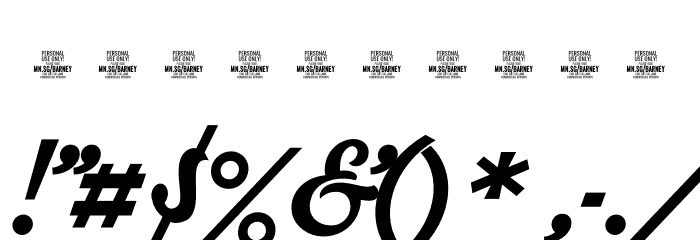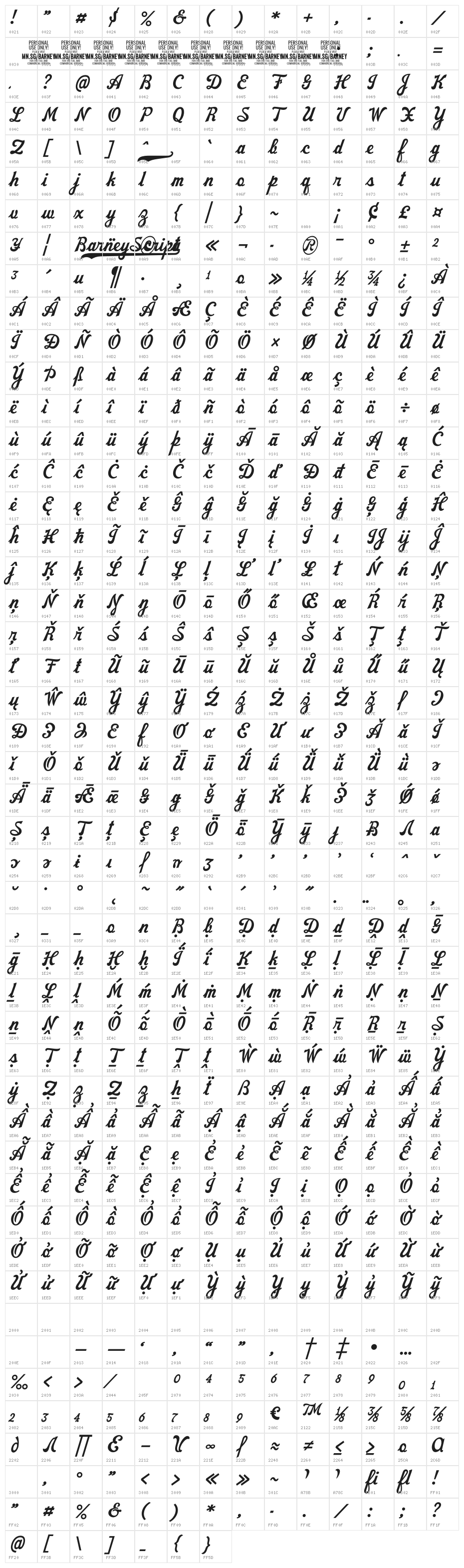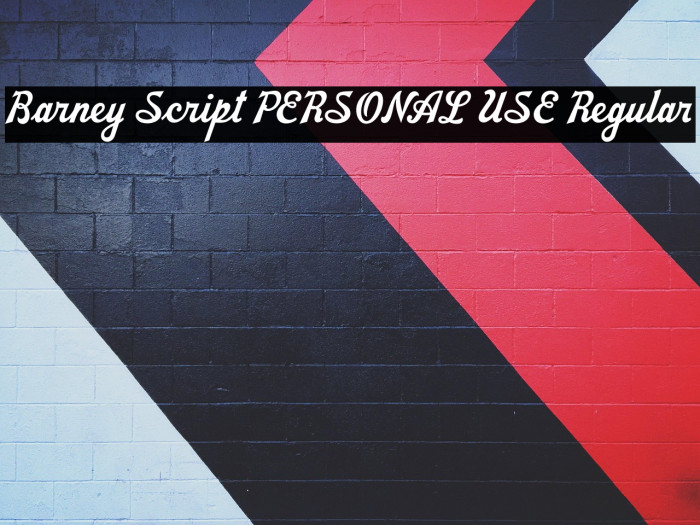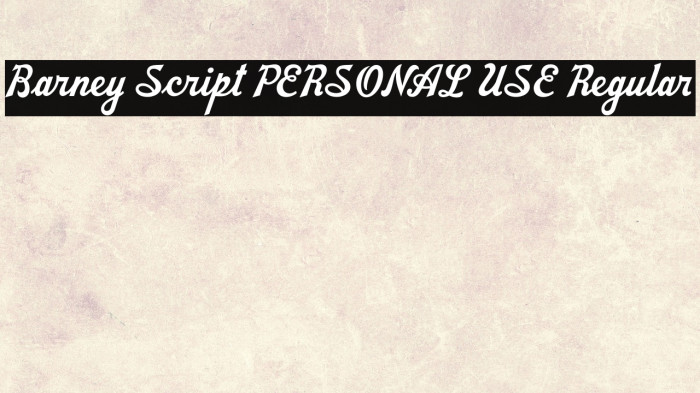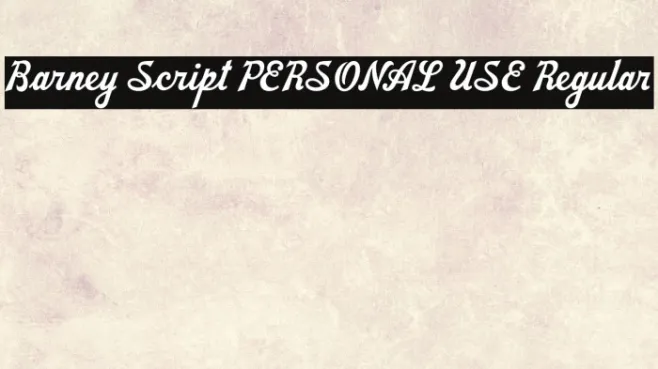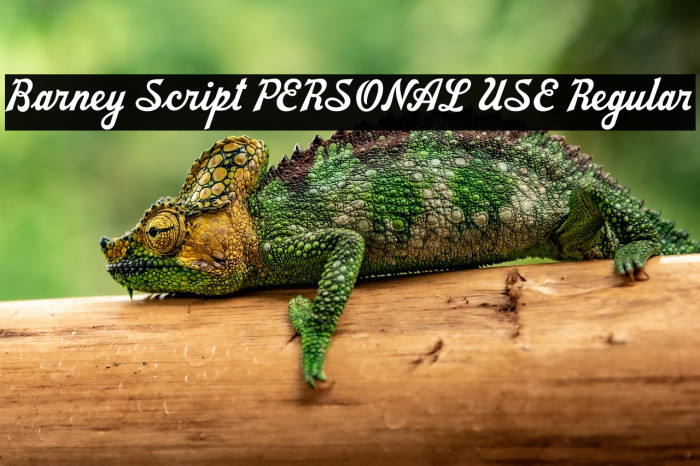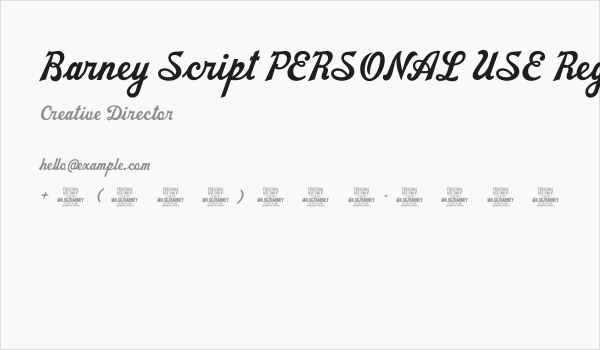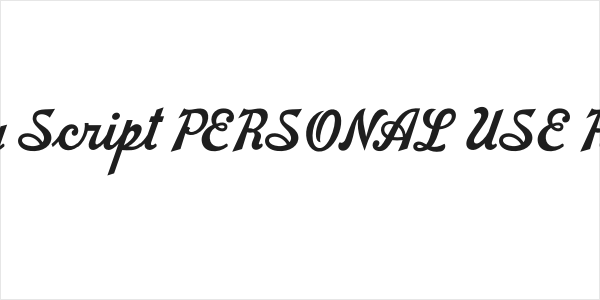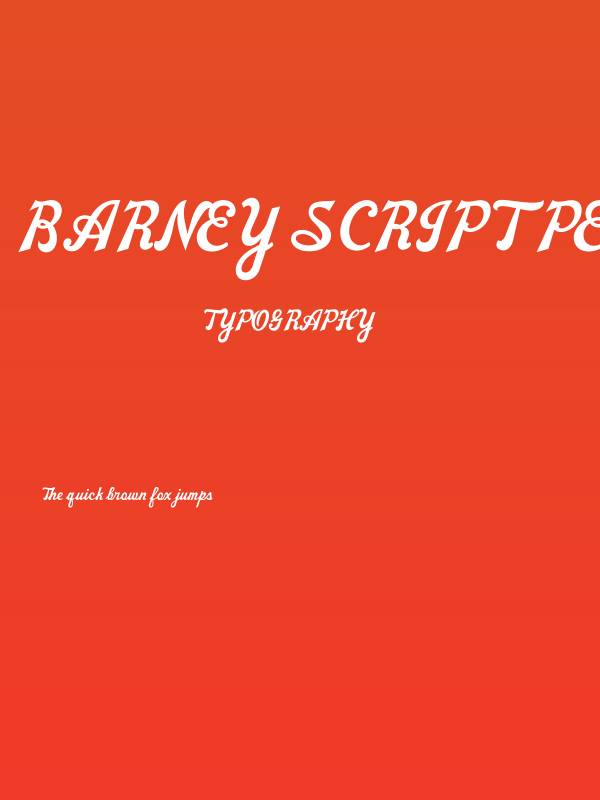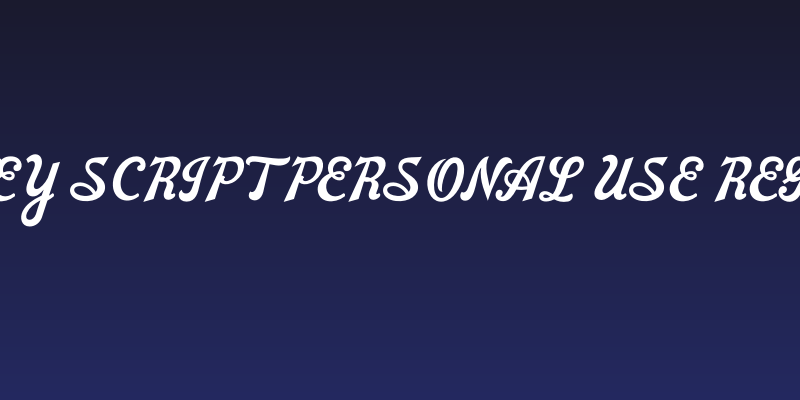
Barney Script PERSONAL USE Regular Font
Barney Script PERSONAL USE Regular Description
This font features a flowing, cursive style with elegant, sweeping strokes that give it a dynamic and lively appearance. The uppercase letters are bold and prominent, with distinctive loops and curves that add a touch of sophistication. The lowercase letters maintain the same fluidity, with a slightly more compact form that complements the uppercase characters. The numerals and special characters are designed to match the overall script style, ensuring consistency throughout. This font is ideal for projects that require a personal, handwritten touch, such as invitations, greeting cards, or branding materials. Its bold presence makes it suitable for headlines and titles, while the intricate details add a decorative flair.